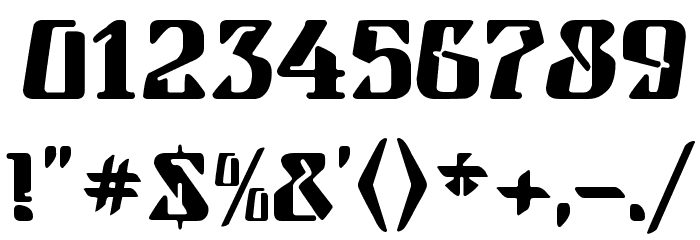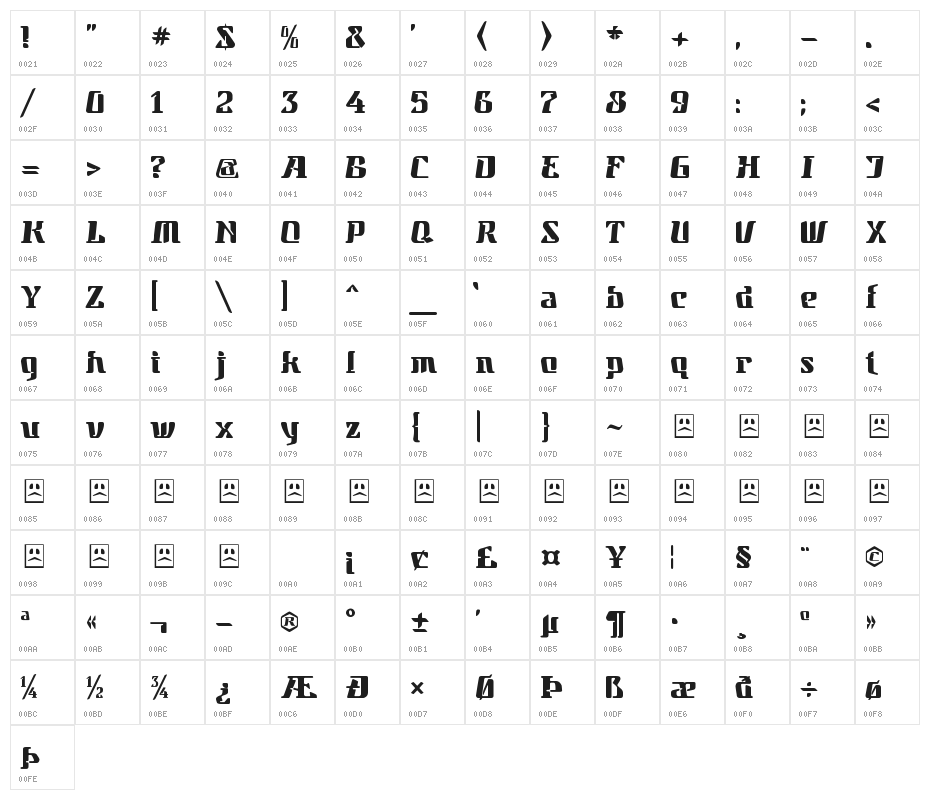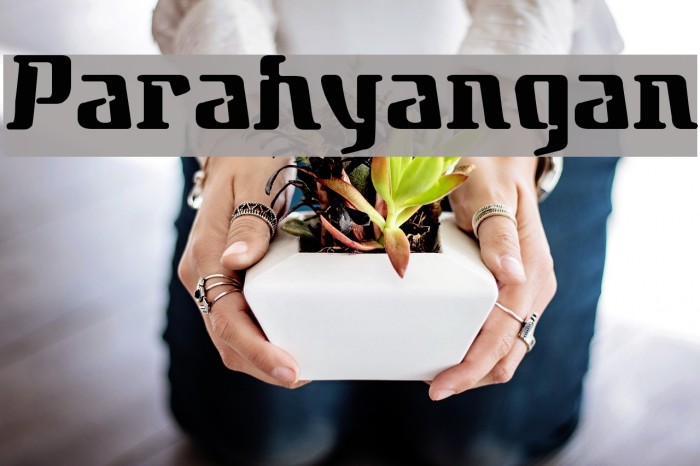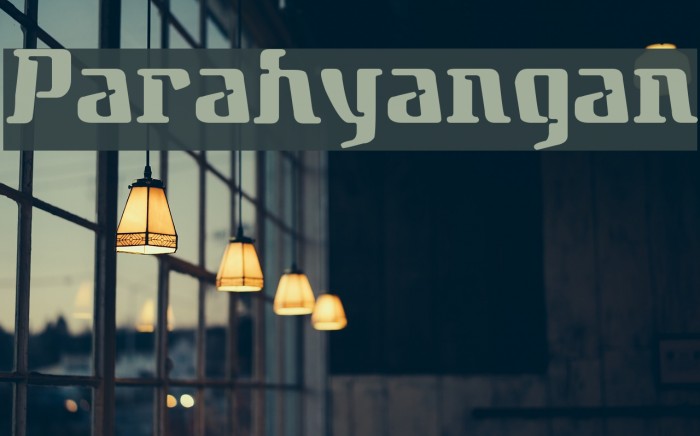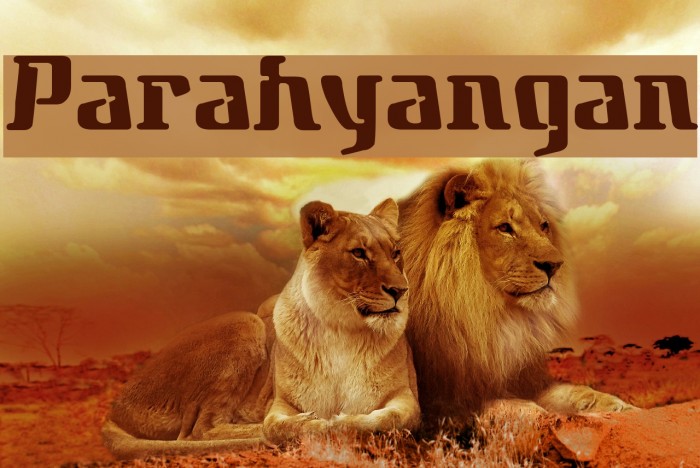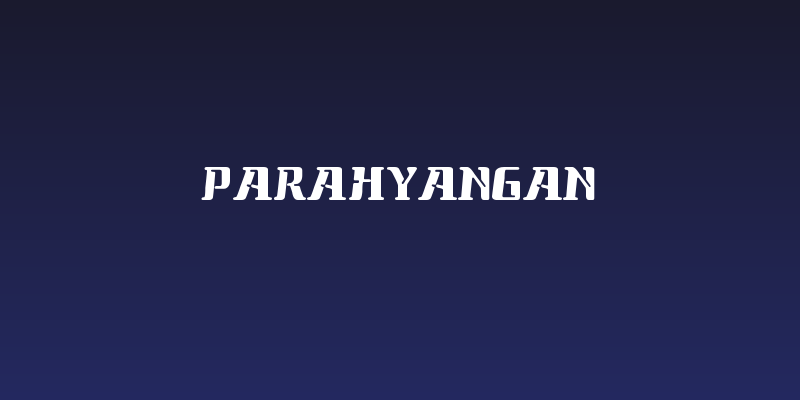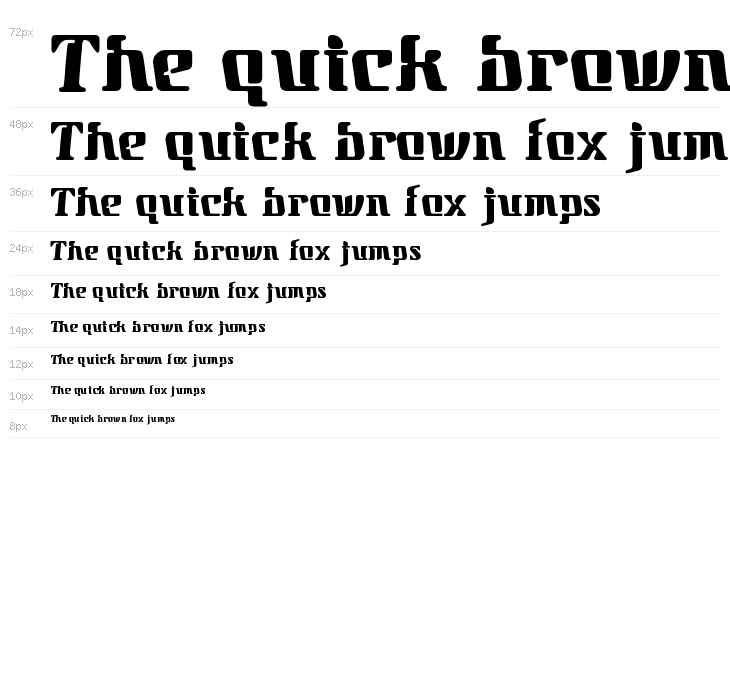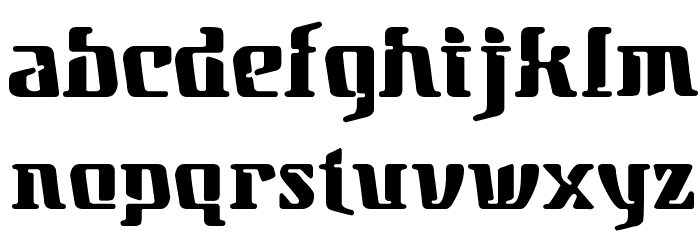
Parahyangan Font
Parahyangan Description
This font features a bold and dynamic style with a distinct, angular design. The characters are crafted with sharp edges and a strong presence, making it ideal for attention-grabbing headlines. The uppercase and lowercase letters maintain a consistent style, with a slightly condensed appearance that enhances its boldness. Numbers and special characters follow the same design principles, ensuring uniformity across all glyphs. The font's unique aesthetic is reminiscent of a modern, industrial look, suitable for projects that require a strong visual impact.
| Proposed Projects | Ideal for branding, posters, and headlines that require a strong, impactful presence. |